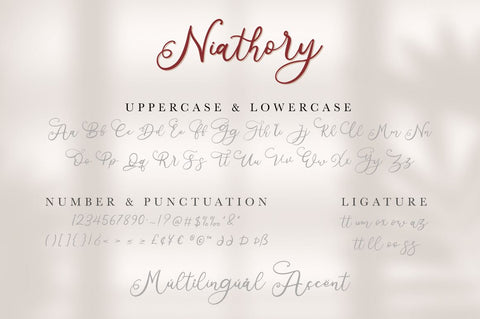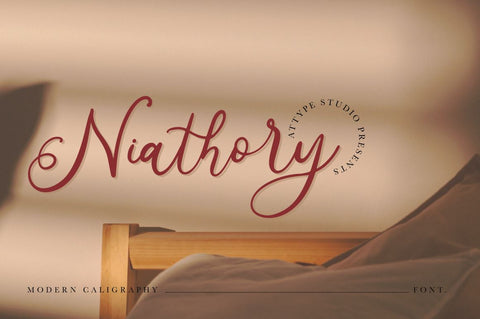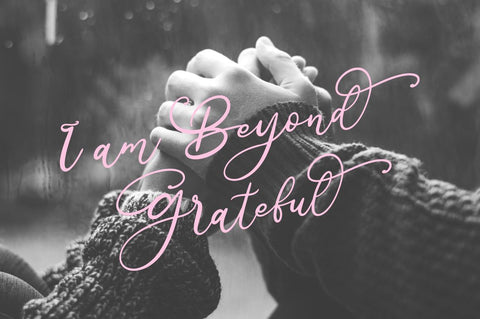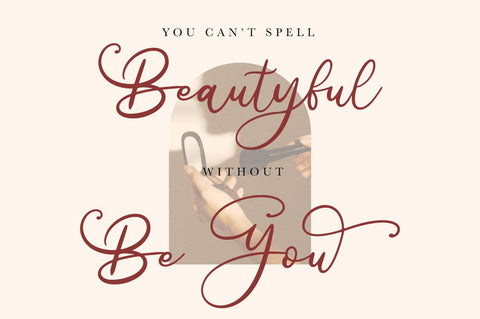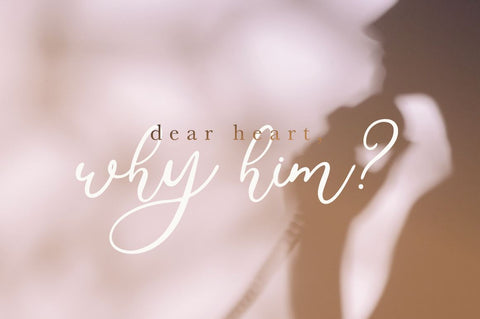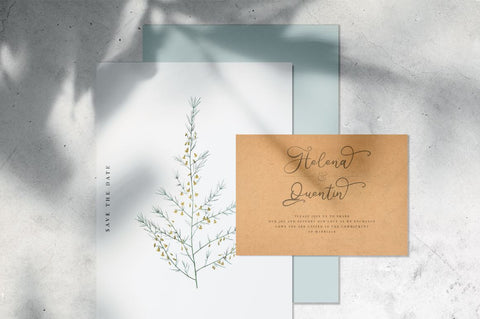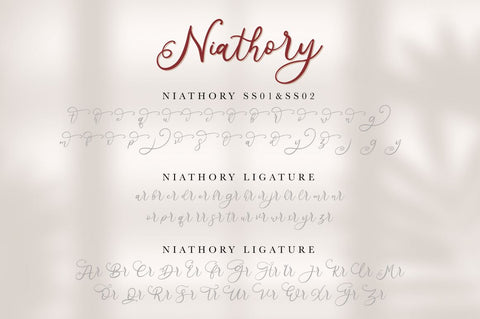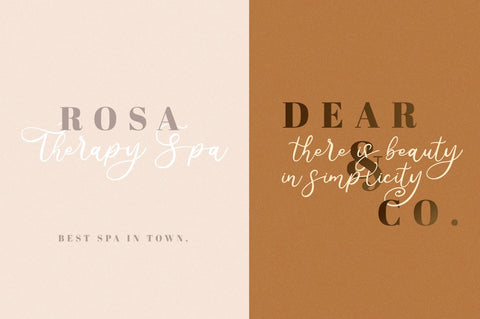
Niathory - Modern Calligraphy Font
Niathory is a Modern Calligraphy Font perfect for your wedding dream.
Combine Niathory with stylistic set to create amazing script font for wedding!
Niathory is perfect for branding, logo, invitation, quotes, apparel design, product packaging, merchandise,
game titles, cute style design, Book/Cover Title and more.
- Ligature
- Stylistic Set character